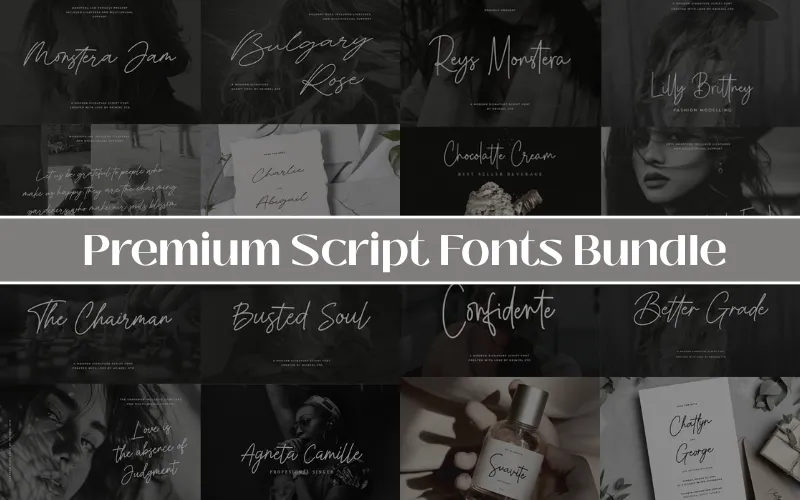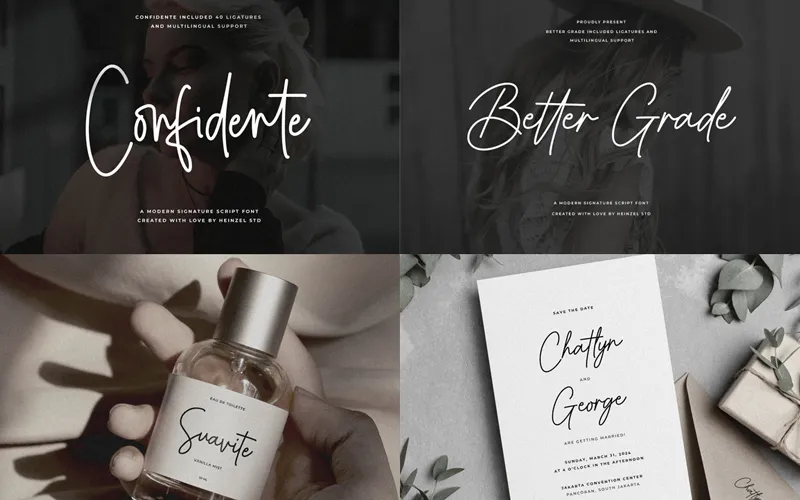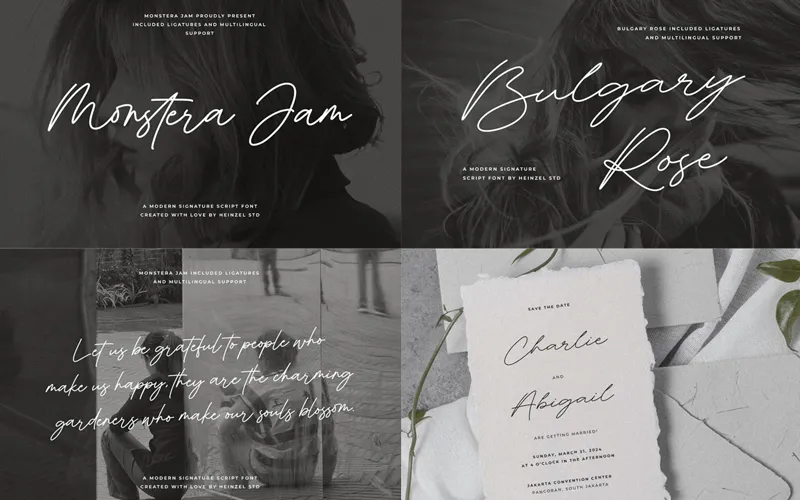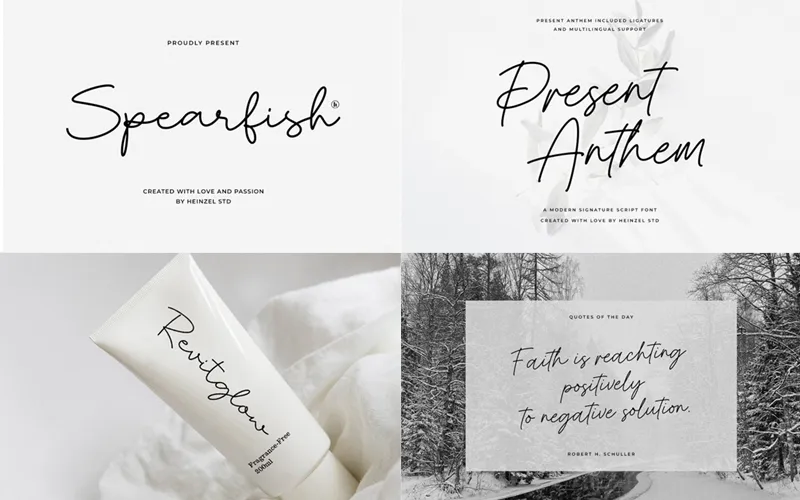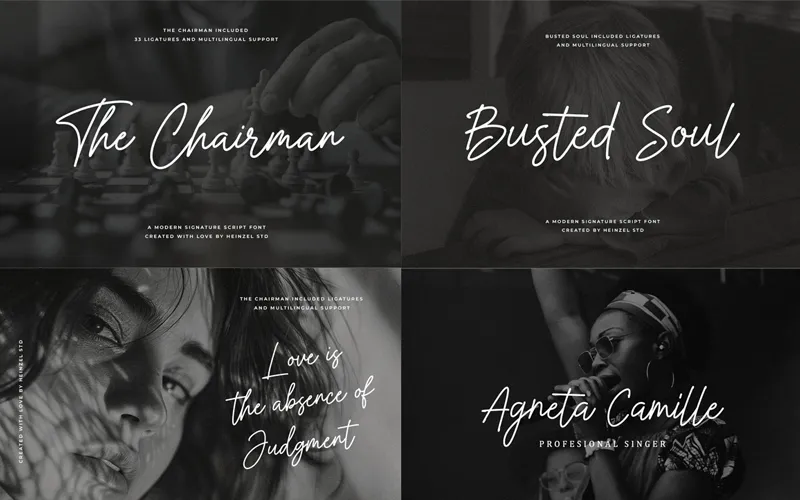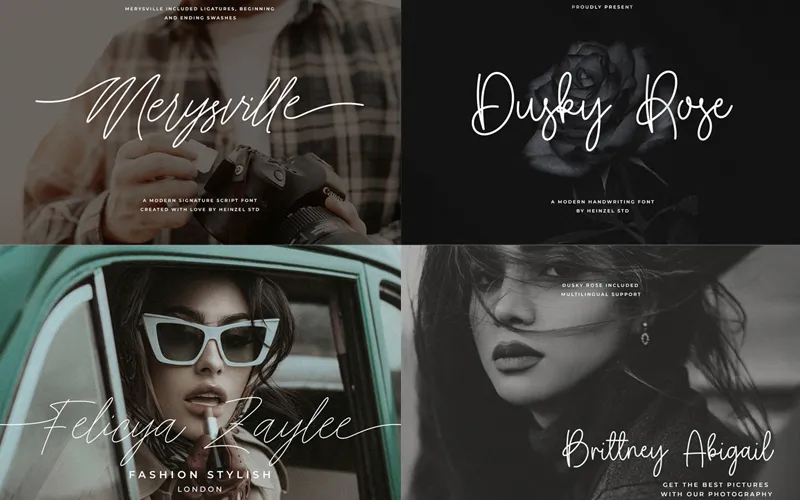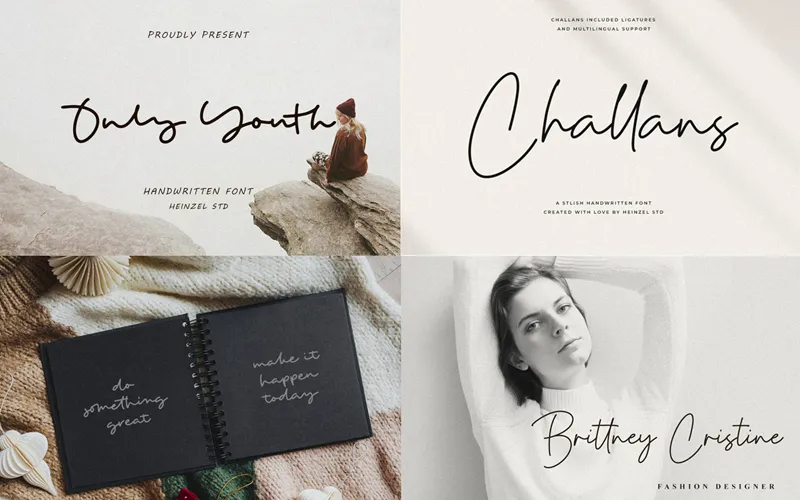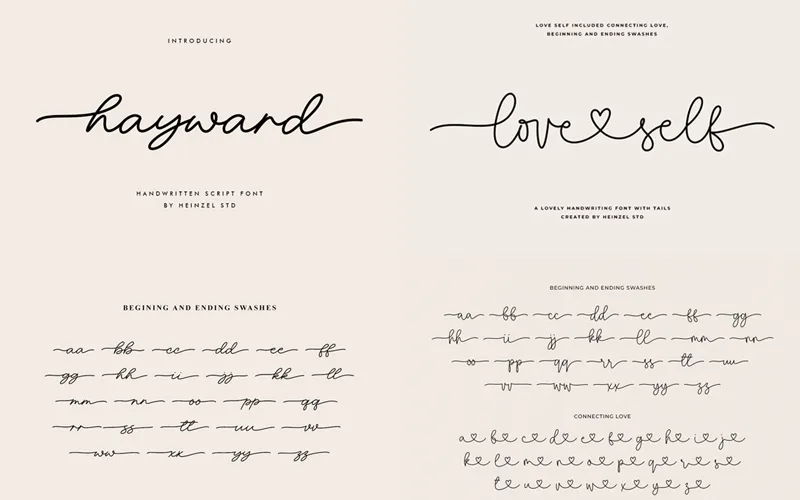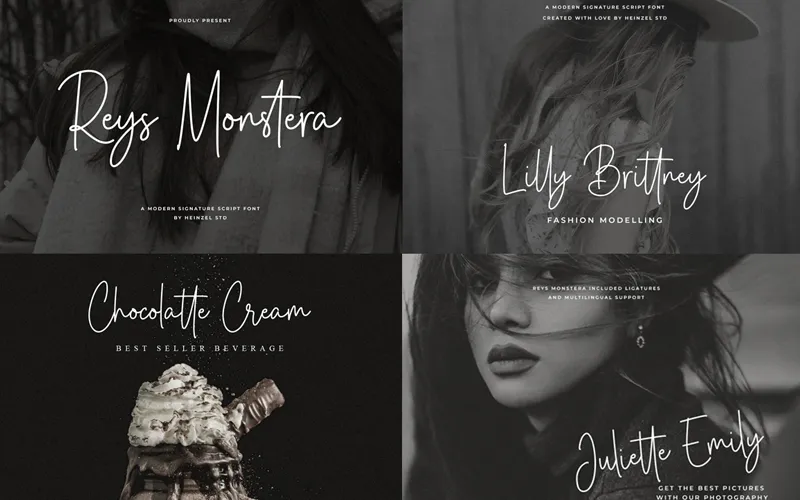
• 17 premium modern script fonts
• Elegant, luxurious, & professional designs
• Includes alternates, ligatures, and swashes
Add style, flair, & personality to your designs and elevate your typography game with –
Premium Script Fonts Bundle
These script fonts blend modern elegance with smooth, handwritten strokes.
They include stylistic alternates, swashes, ligatures, & glyphs, allowing you to customize your typography to match any mood or project.
This Premium Script Fonts Bundle Includes:
• Better Grade font
• Bulgary Rose font
• Busted Soul font
• Challans font
• Confidente font
• Duskt Rose font
• Hayward font
• Love Self font
• Merysville font
• Monstera Jam font
• Only Youth font
• Present Anthem font
• Reys Monstera font
• Richford font
• Royal Brand font
• Spearfish font
• The Chairman font
• Special Characters Included: Alternates, Ligatures, Swashes, & Glyphs
A Preview of Premium Script Fonts Bundle:
Black-and-white panels featuring fonts like The Chairman and Busted Soul in lifestyle scenes
Font used in fashion, beverage, and photography branding across four grayscale panels
Font samples on grayscale photos with wedding and gratitude themes
Font samples on rose imagery, fashion portraits, and photography-themed visuals
Font showcase with decorative swashes, connecting love glyphs, and branding samples
Font previews on notebooks, fashion portraits, and minimalist branding
Handwritten font previews on wedding invitations and luxury branding panels
Font samples on skincare packaging, winter quotes, and branding visuals
Font showcase with decorative swashes, connecting love glyphs, and branding samples